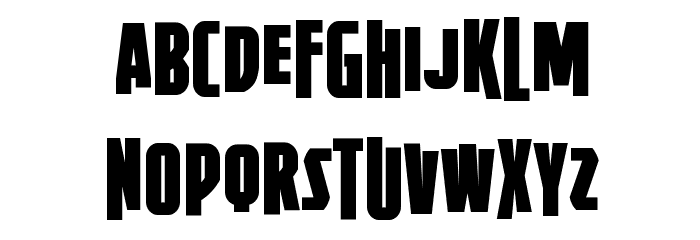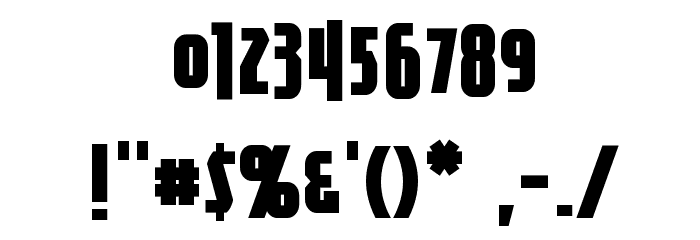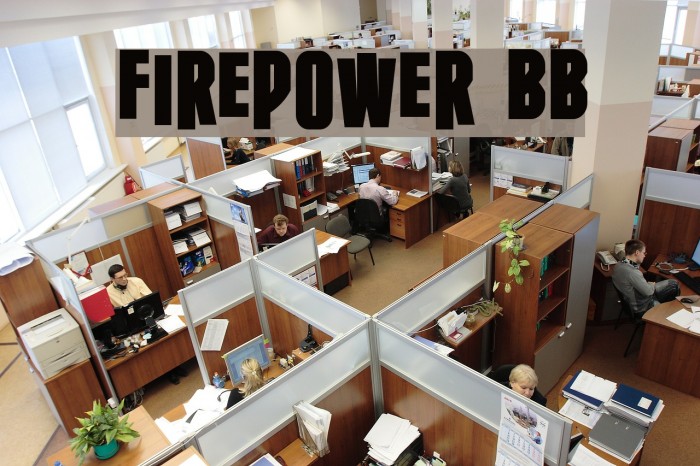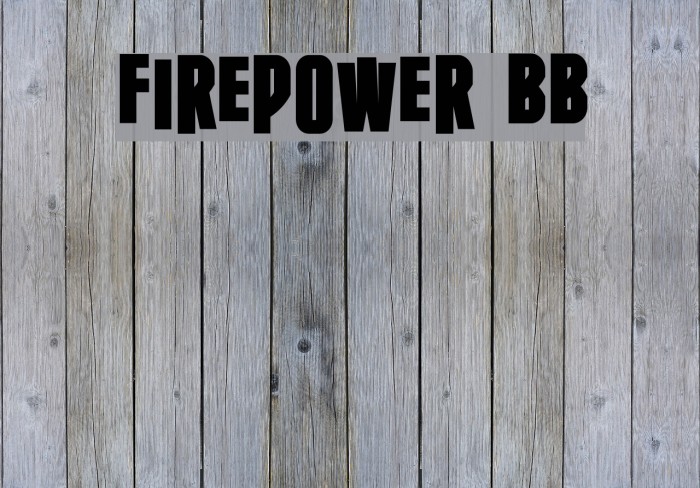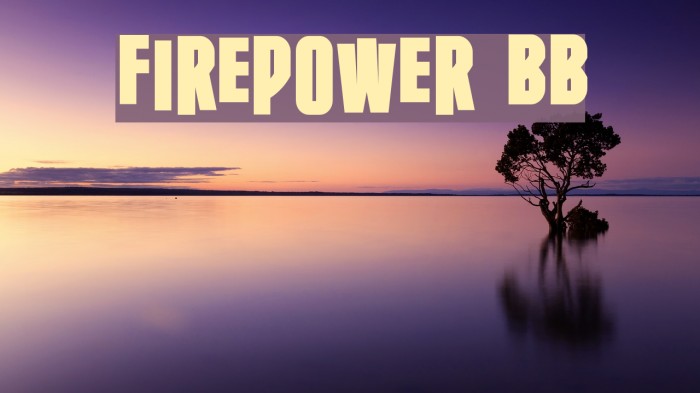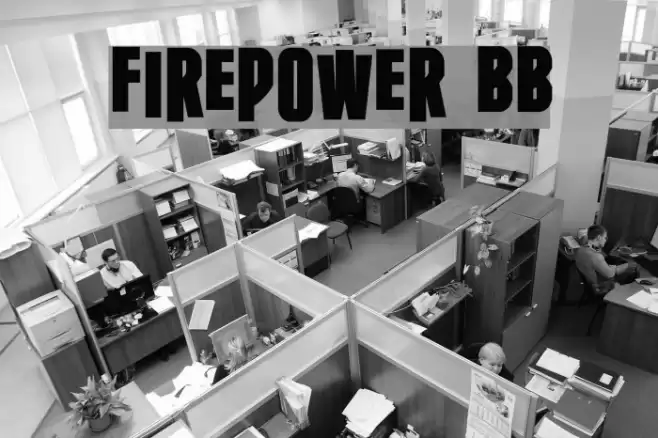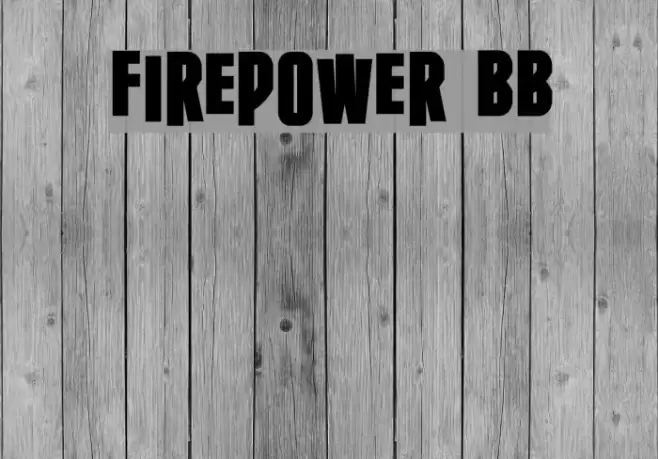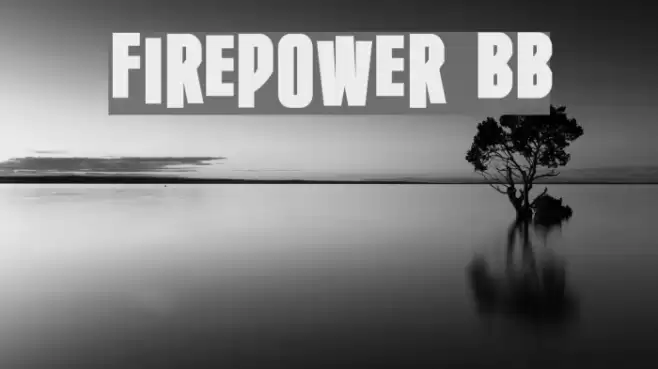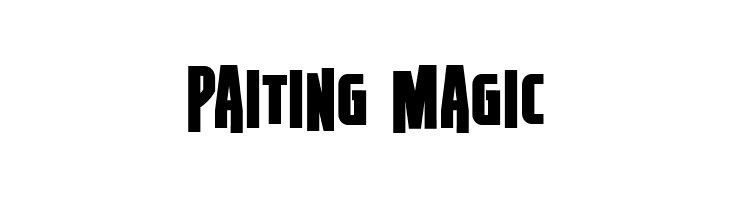
Firepower BB Font
This font features a bold and impactful design with strong geometric shapes and a slightly condensed appearance. The characters are uniformly thick, giving a sense of power and stability. The uppercase letters are particularly striking, with sharp angles and a solid presence. The lowercase letters maintain the same boldness, ensuring consistency across all text. Numbers and special characters are designed to match the robust style, making them stand out clearly. This font is perfect for making a statement and grabbing attention.
A bold, geometric font with a strong, impactful presence.
- Proposed Projects: Ideal for posters, headlines, logos, and branding materials that require a strong visual impact.